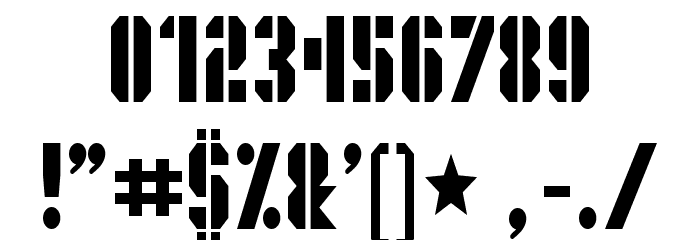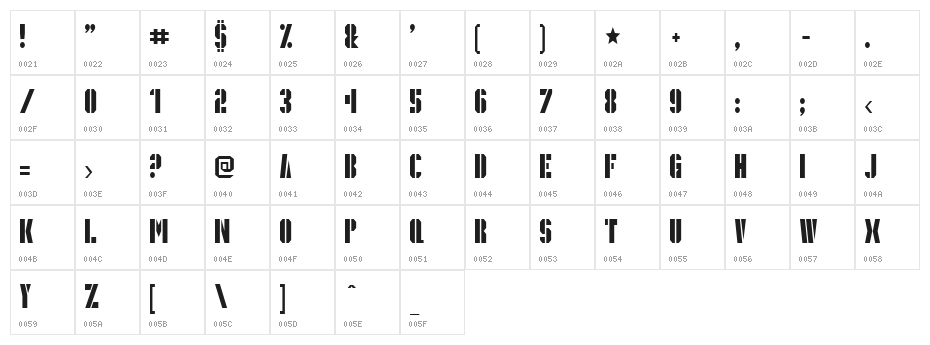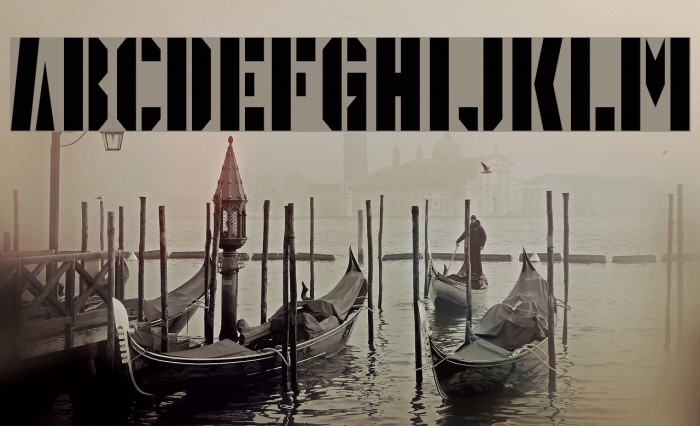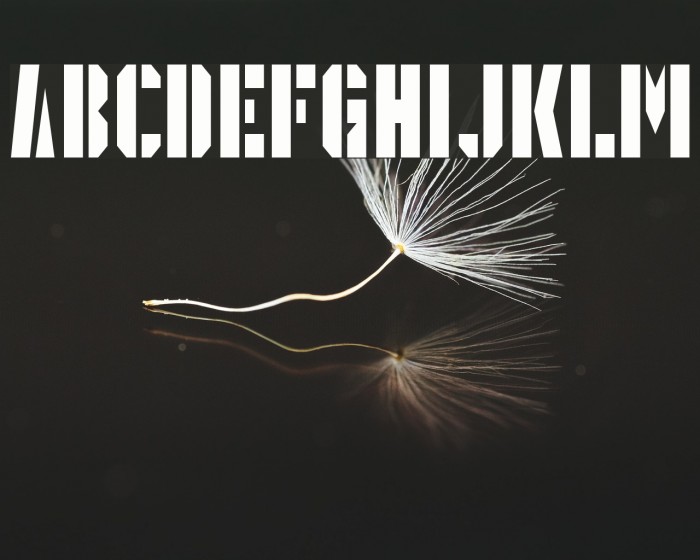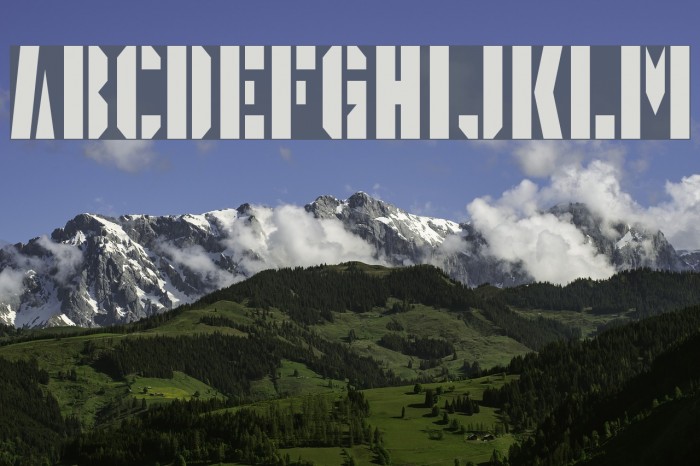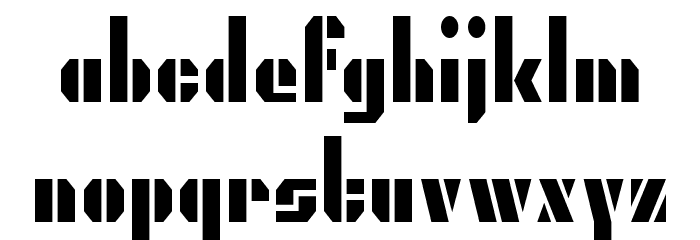
PresidentGas Font
PresidentGas Description
This font features a bold, geometric design with a strong, impactful presence. The characters are constructed with sharp angles and straight lines, giving it a modern and industrial feel. The uppercase letters are particularly striking, with a stencil-like appearance that suggests a sense of strength and authority. The lowercase letters maintain the same geometric style, ensuring consistency across the typeface. Numbers and special characters are equally bold, making them stand out in any design. This font is ideal for projects that require a commanding and assertive visual impact.